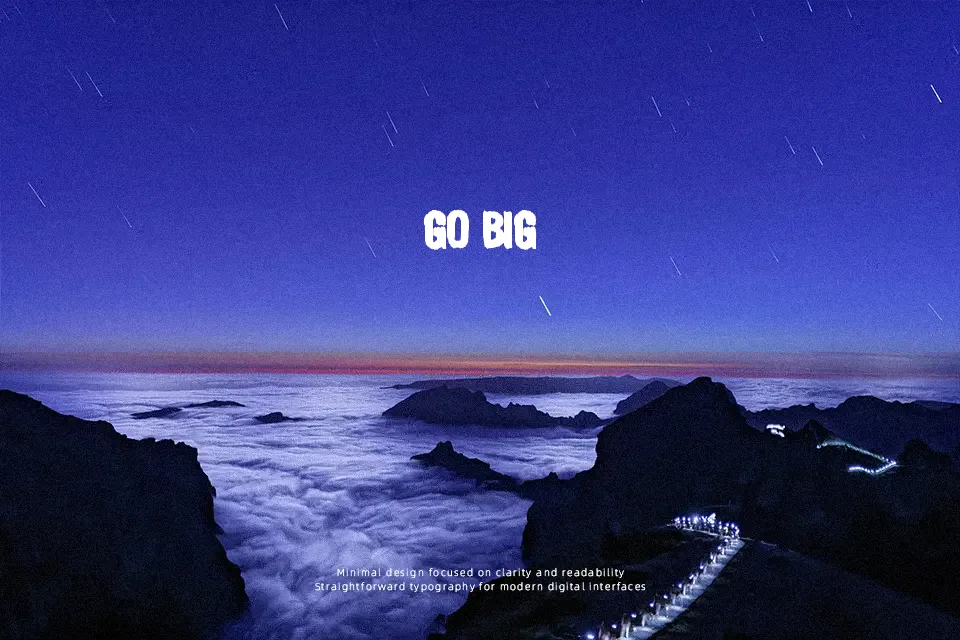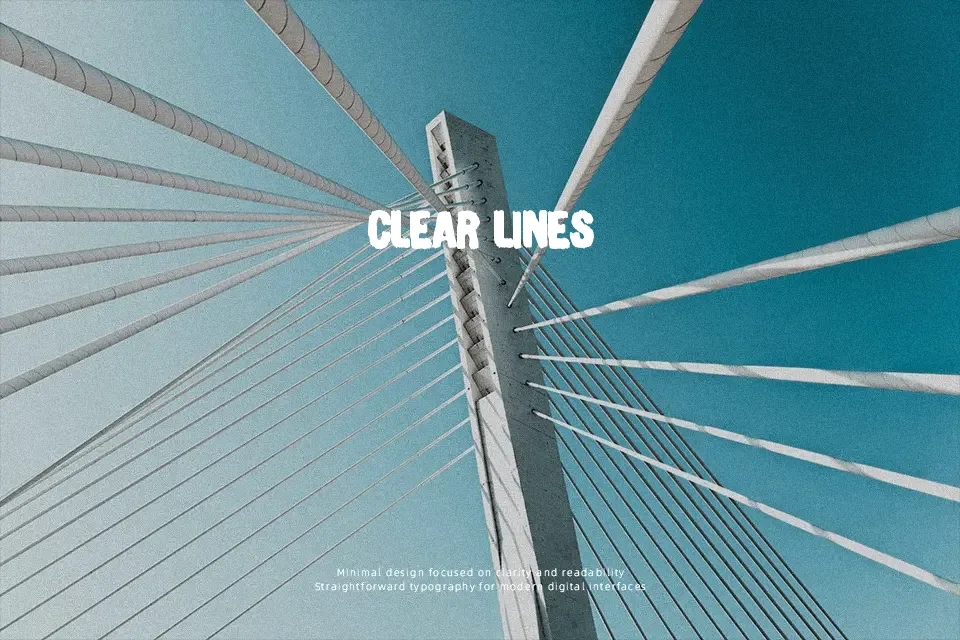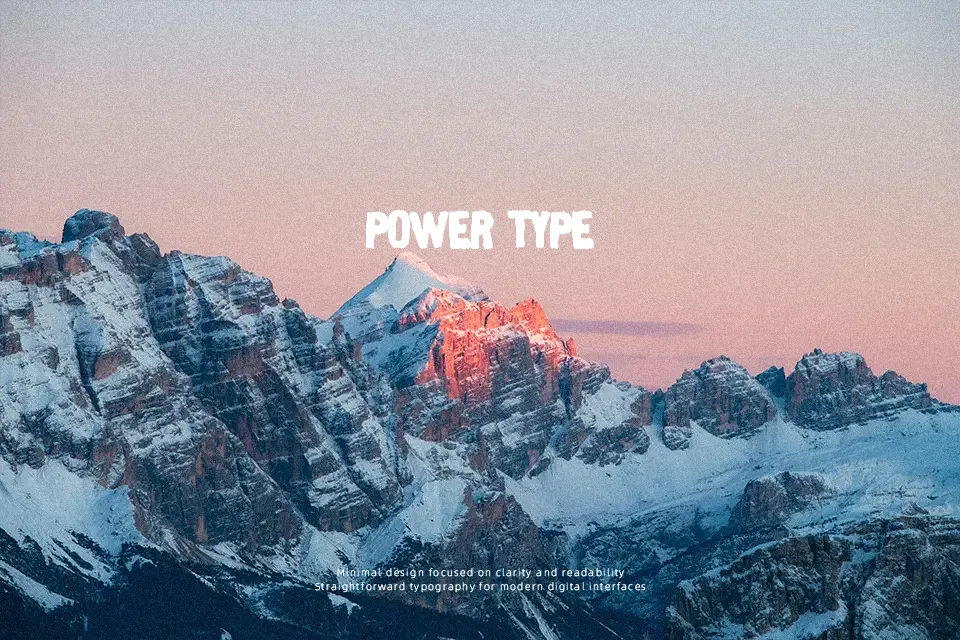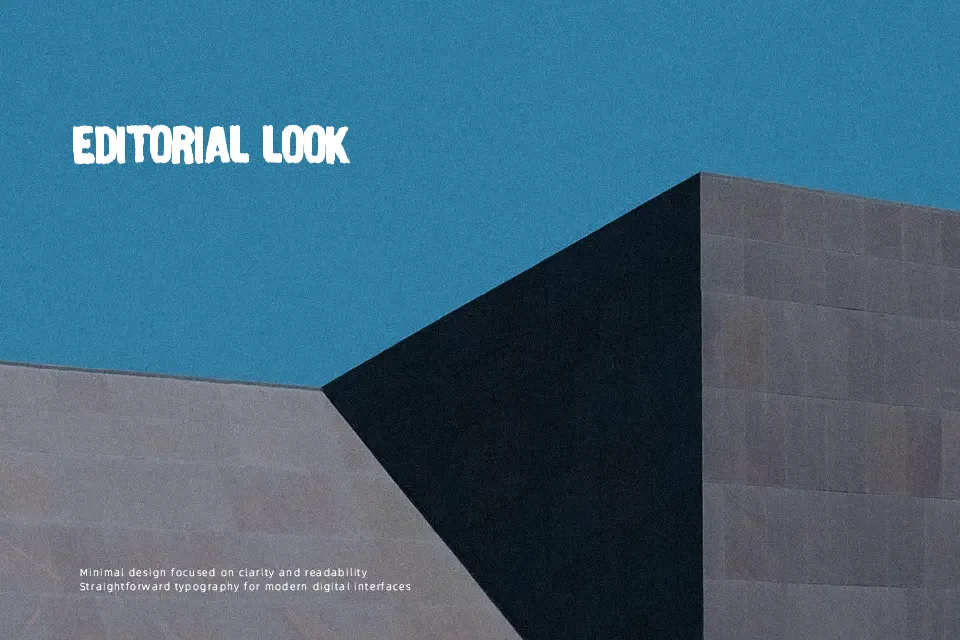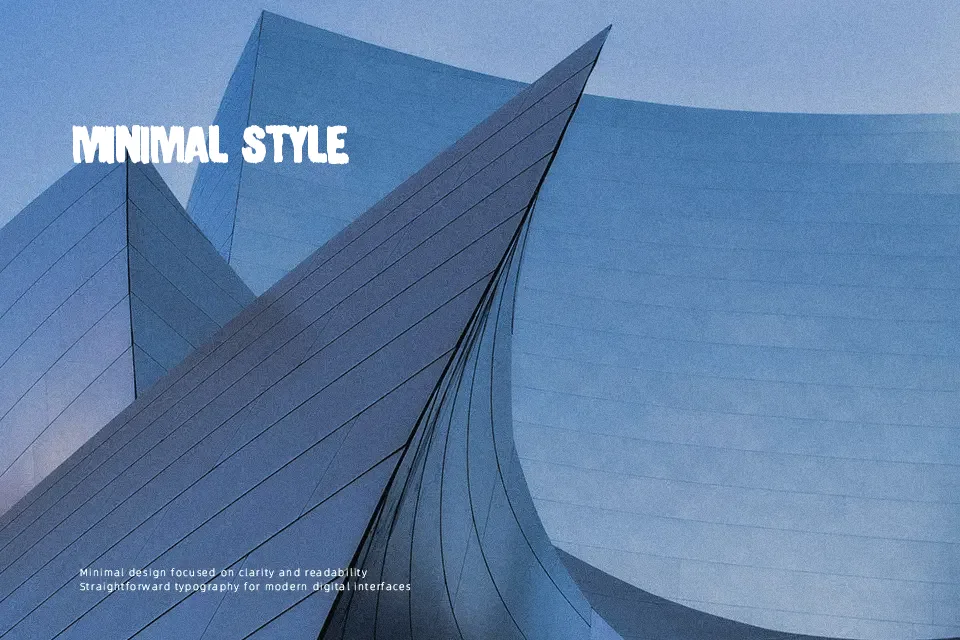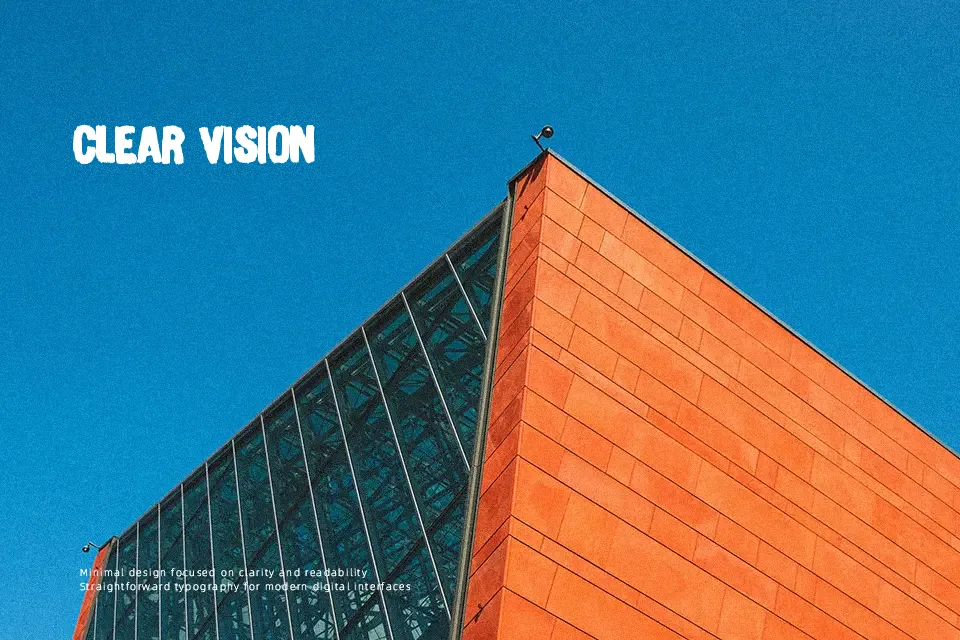
Urban Paints Font
Urban Paints Font presents a distressed display typeface defined by rough outlines, fragmented edges, and uneven paint-textured fills across its uppercase and lowercase letterforms. The typeface features compact spacing and variable stroke density, ensuring intense visual impact when rendered in prominent headlines and artistic titles. While the heavy erosion enhances character at large display sizes, intricate cutout details quickly deteriorate at smaller point scales. Continuous reading comfort is significantly reduced due to the chaotic silhouettes, making the design ill-suited for body text yet remarkably effective for expressive, grunge-inspired signage.
Best For: streetwear apparel graphics, skate deck prints, music festival posters, underground event banners
Not Ideal For: long paragraph text, mobile user interface labels, official legal documents, compact editorial captions
Perfect for advertising, branding, and headline, with a artistic and decorative style.